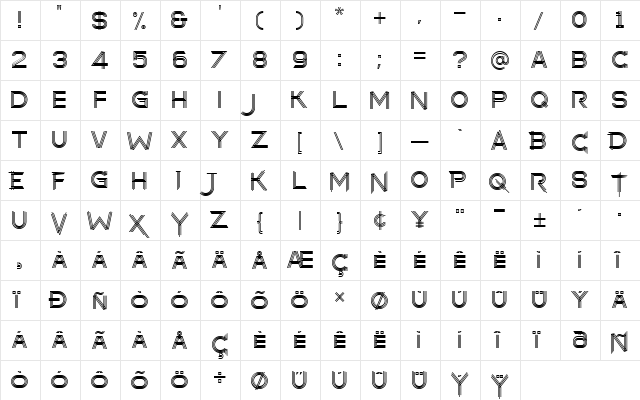
makayla Regular
| Foundry | Rimando Nillo, Jr. |
| Designer | Dondon Nillo |
Design Context for makayla Typeface
makayla takes a measured approach to typography — its balanced proportions and neutral character make it a reliable workhorse for both digital and print work.